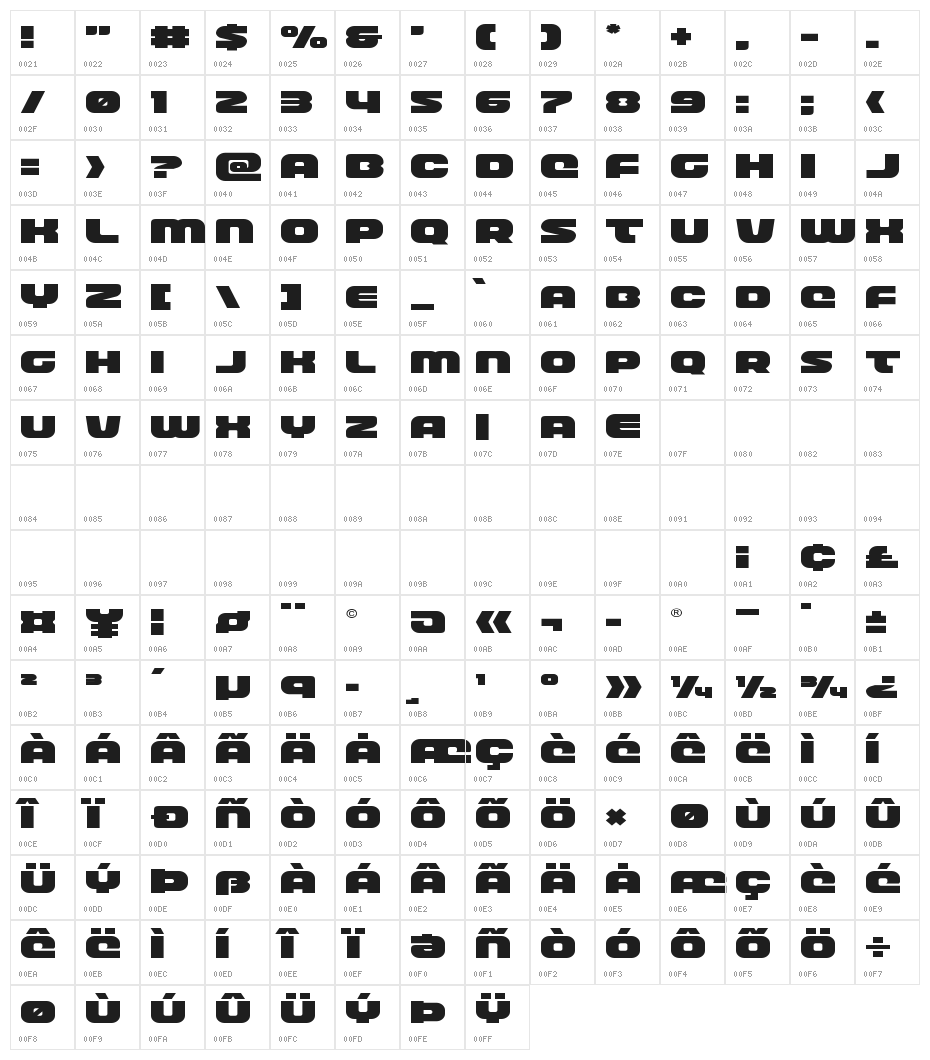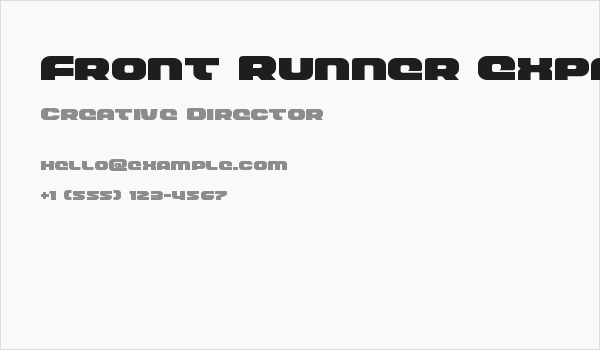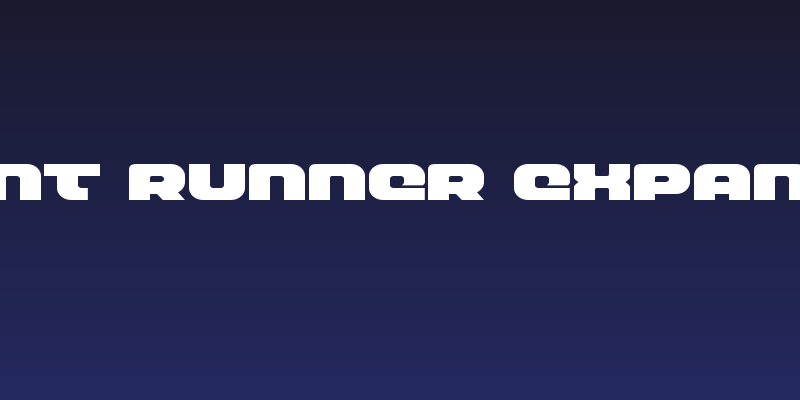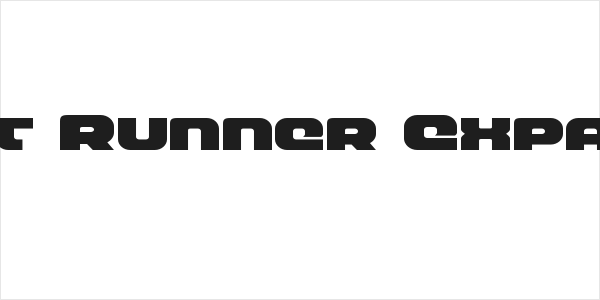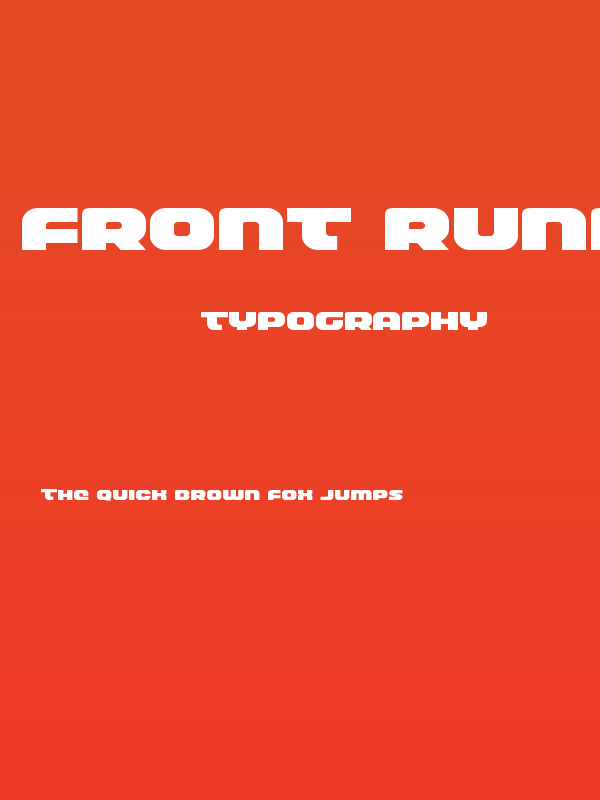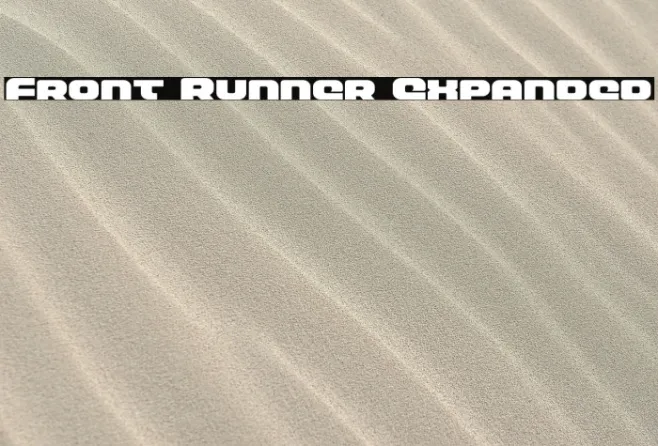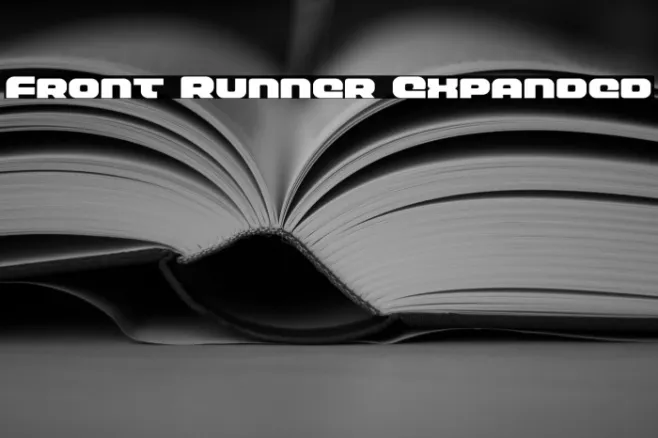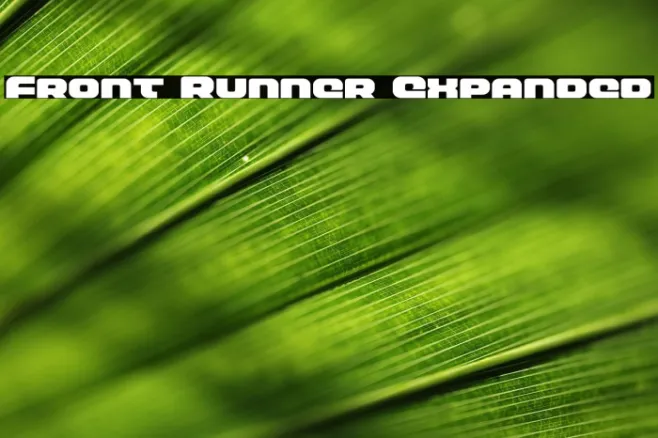
Front Runner Expanded Font
Front Runner Expanded Description
This font features a bold, expanded style with a strong, geometric structure. The characters are wide and have a consistent stroke weight, giving them a robust and impactful appearance. The design is modern and clean, with rounded edges that soften the overall look. The uppercase and lowercase letters maintain a uniform height, enhancing readability. The numerals and special characters follow the same design principles, ensuring a cohesive visual identity across all glyphs. This font is ideal for making a statement in any design project.
| Proposed Projects | Ideal for branding, headlines, posters, and any design needing a strong visual impact. |